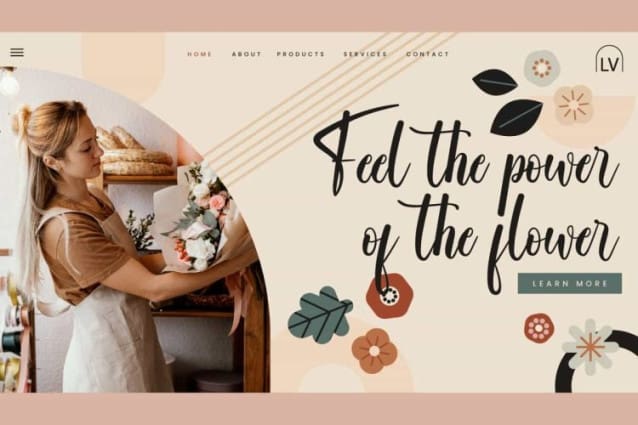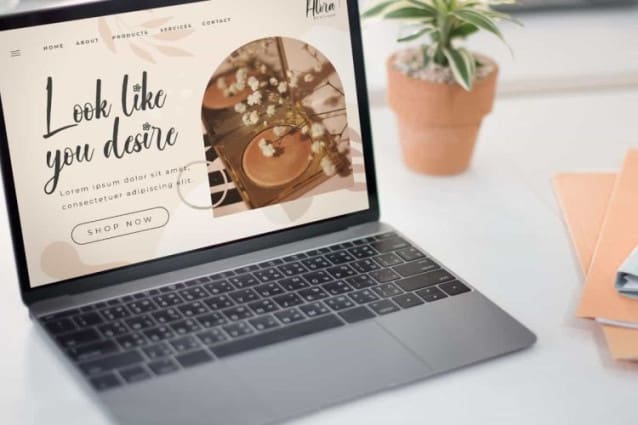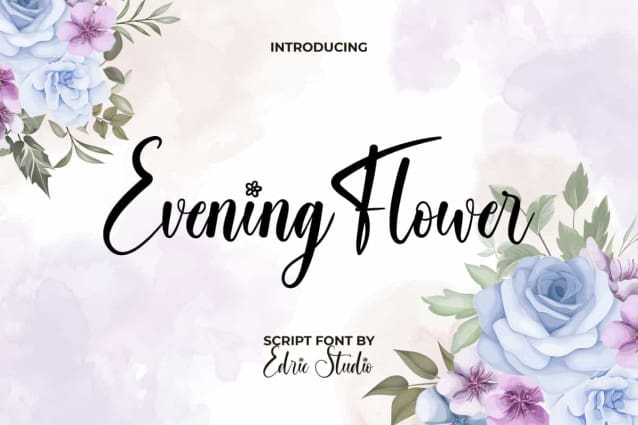
Evening Flower Font
Evening Flower Font is a beautiful script font with lovely calligraphic style. This font has lines that flow like flowers blown by the wind and give it a new freshness to designs, such as billboard, branding, brochure, custom design, flyer, greeting card, header, invitation, label, packaging design, poster, screen print, signage, stationery, sticker, title, website page, and more.
Evening Flower Font can be used in various types of designs to please the eye of the beholder and make it amazing for your business, such as accessories, advertising, beauty product, fashion, florist, homeware, interior design, real estate, wedding or event organizer, etc. It has a full set of Basic Uppercase and Lowercase Characters, Numbers, Punctuation and Symbols, and Ligature.